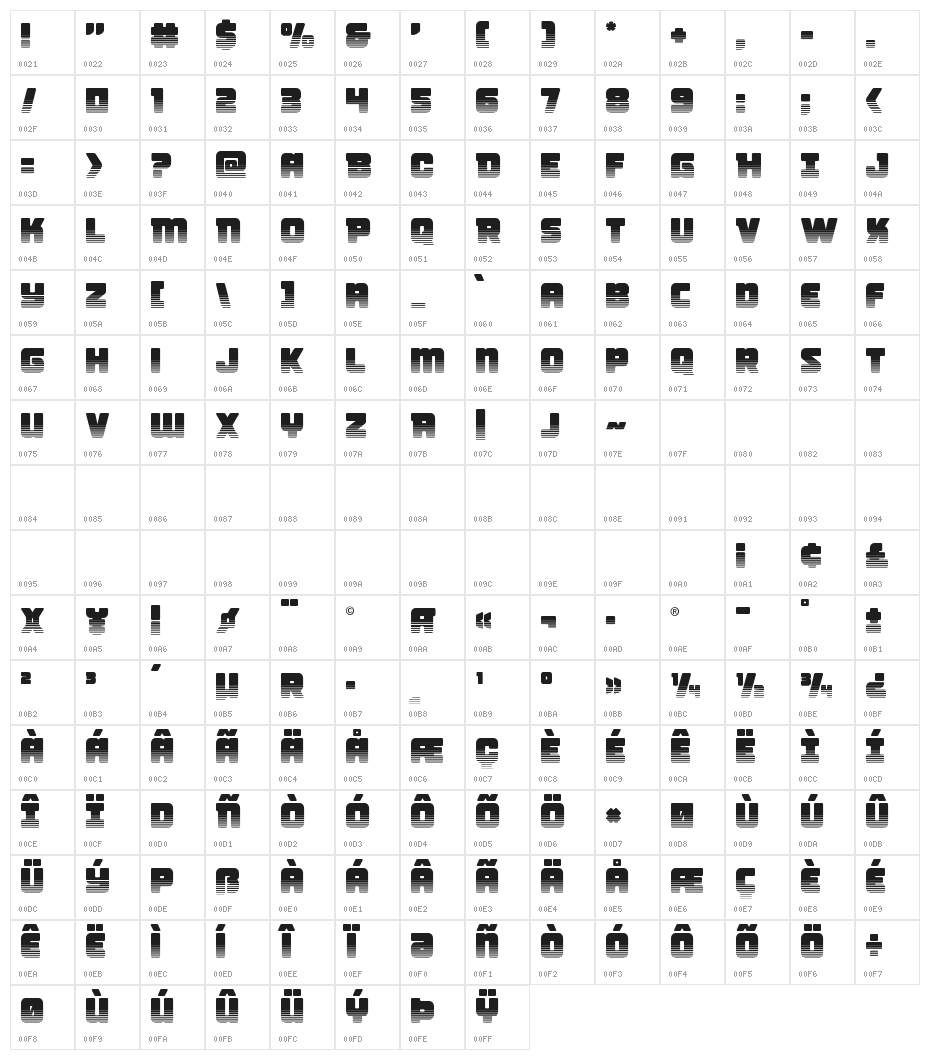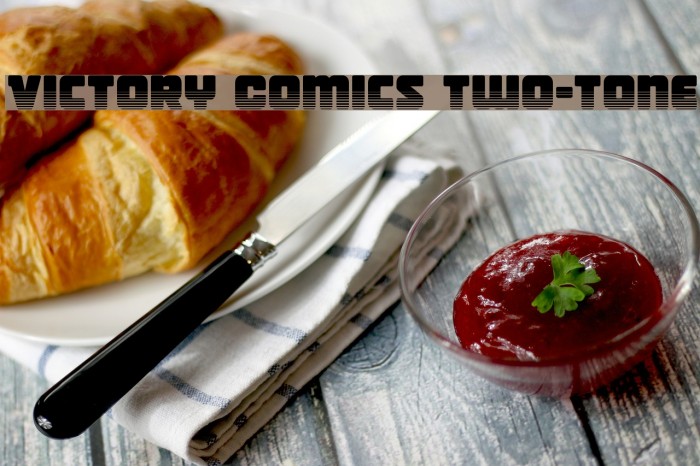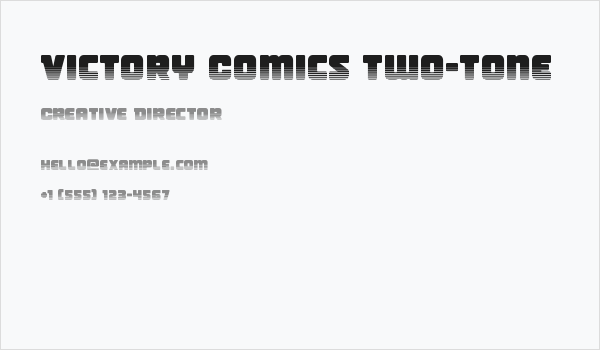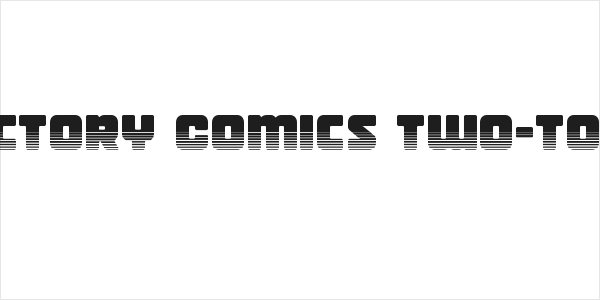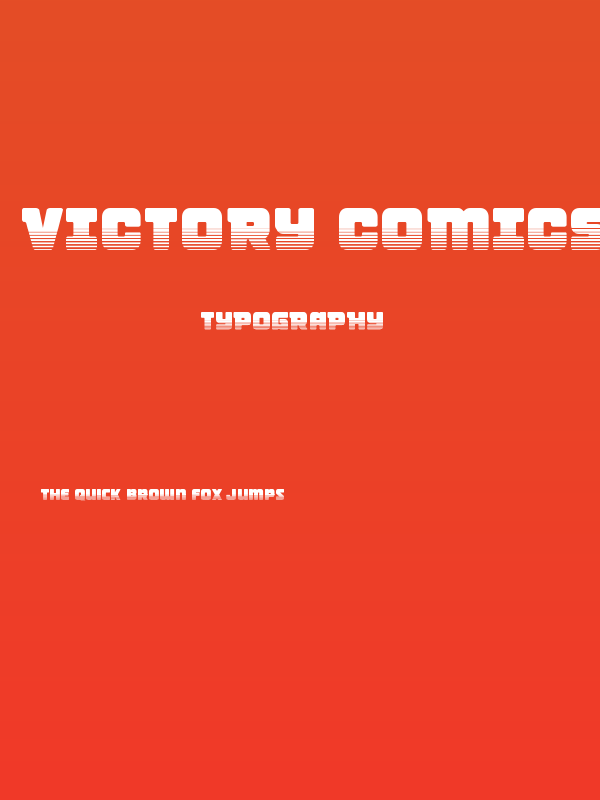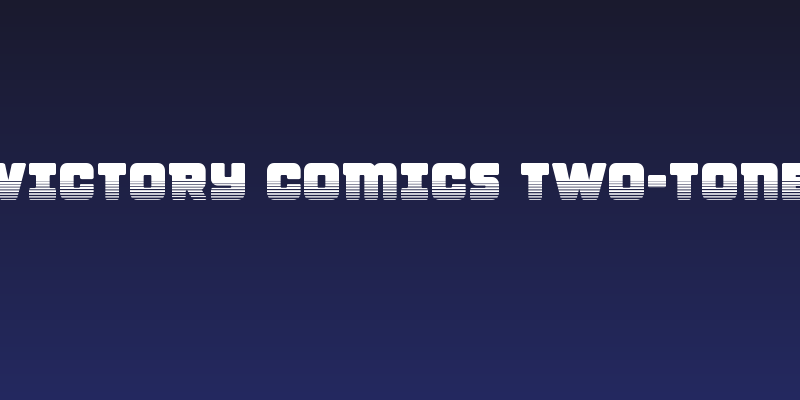
Victory Comics Two-Tone Font
Victory Comics Two-Tone Description
This font features a bold, dynamic style with a distinctive two-tone effect, where each character is filled with horizontal lines that create a sense of movement and depth. The uppercase and lowercase letters are designed with a consistent width, giving the font a uniform appearance. The numbers and special characters maintain this striped pattern, ensuring a cohesive look across all glyphs. The font's unique design makes it stand out, ideal for projects that require a strong visual impact. Its playful yet structured form is perfect for creative and modern applications.
| Proposed Projects | Ideal for comic book titles, posters, logos, and any project needing a bold, eye-catching typeface. |